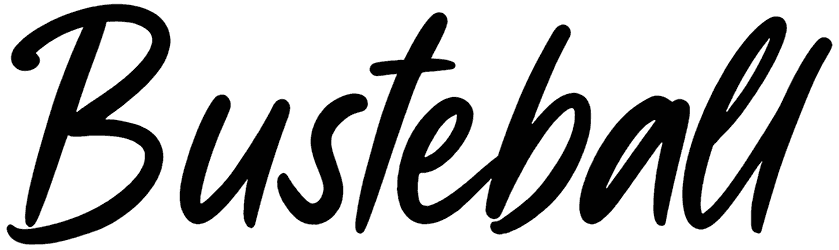
Busteball Font
Surprise your customers with your lovely text design. Busteball is a script font that comes in medium characters and works flawlessly for cosmetic packages, fashion magazines, logos, and so on. It will add a modern and neat mood to your text layout, but remember it lacks numbers. To get your hands on more freebies, don’t miss our limitless inventory!
Busterball is a classy script font. Made for any professional project branding. It is the best for logos, branding and quotes. Every letter has a unique and beautiful touch.